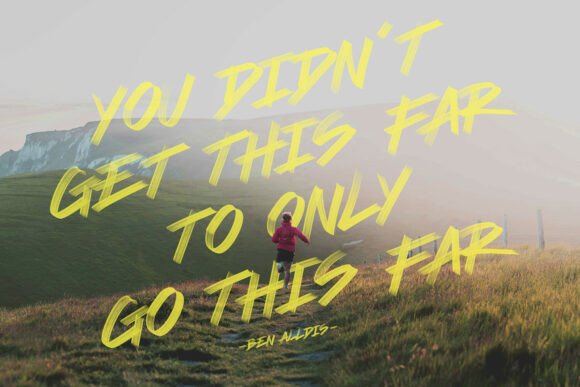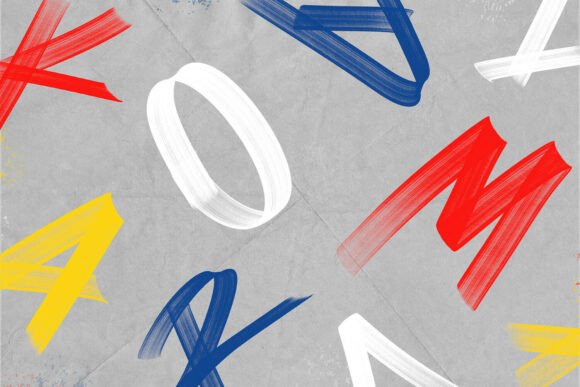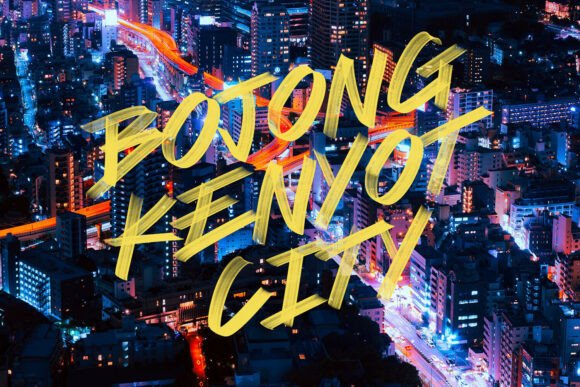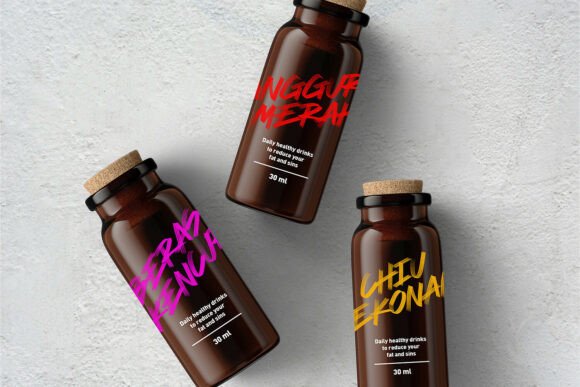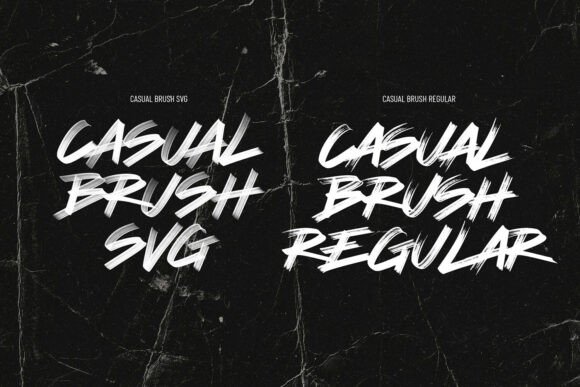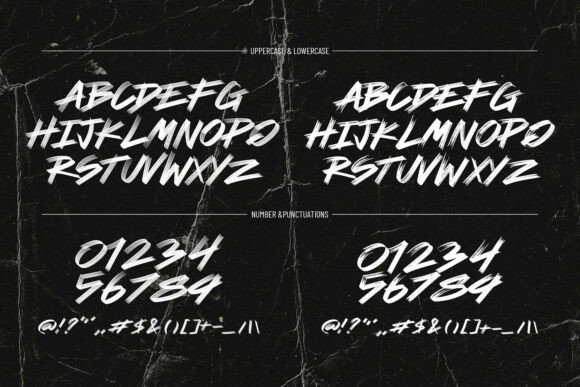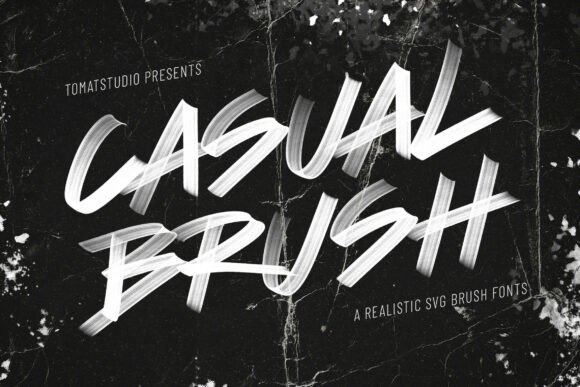
Introducing Casualbrush Font: The Ultimate Brush Font for Creative Designs
Are you looking for a font that can add a touch of personality and whimsy to your designs? Look no further than Casualbrush Font, a realistic brush font that is sure to take your creative projects to the next level. With its bold, fluid, and energetic brush strokes, Casualbrush Font is perfect for designers and crafters who want to convey a powerful and expressive message with a casual, yet impactful, aesthetic.
What is Casualbrush Font?
Casualbrush Font is a hand-painted font that is designed to mimic the look and feel of traditional brush strokes. Its distinctive character is defined by bold, fluid, and energetic brush strokes that give the impression of being hand-painted. The font comes in two styles: Casual Brush SVG and Casual Brush Regular. The Casual Brush SVG style utilizes advanced SVG technology to capture a highly detailed, textured brush appearance, while the Casual Brush Regular style offers a cleaner, solid version of the same artistic strokes.
Key Features of Casualbrush Font
- Realistic Brush Strokes: Casualbrush Font features bold, fluid, and energetic brush strokes that give the impression of being hand-painted.
- Two Styles: The font comes in two styles: Casual Brush SVG and Casual Brush Regular, allowing you to choose the one that best suits your design needs.
- Slanted, Dynamic Letterforms: The slanted, dynamic letterforms create a sense of movement and spontaneity, making it perfect for designs that need to convey a powerful and expressive message.
- Versatile: Casualbrush Font is suitable for a wide range of creative projects where an authentic, hand-painted feel is desired.
Benefits of Using Casualbrush Font
Casualbrush Font offers a range of benefits for designers and crafters, including:
- Unique and Eye-Catching Designs: With its bold, fluid, and energetic brush strokes, Casualbrush Font is sure to add a touch of personality and whimsy to your designs.
- Time-Saving: Casualbrush Font saves you time and effort by providing a pre-designed font that can be used in a variety of creative projects.
- High-Quality: The font is designed to high-quality standards, ensuring that your designs look professional and polished.
Use Cases for Casualbrush Font
Casualbrush Font is suitable for a wide range of creative projects, including:
- Branding and Packaging: Use Casualbrush Font to create unique and eye-catching branding and packaging designs that stand out from the crowd.
- Posters and Flyers: The font is perfect for creating bold and eye-catching posters and flyers that grab attention.
- Digital Art and Illustration: Casualbrush Font can be used to add a touch of personality and whimsy to digital art and illustration projects.
- Crafting and Scrapbooking: The font is also suitable for crafting and scrapbooking projects, where a hand-painted feel is desired.
Tips for Using Casualbrush Font
Here are some tips for using Casualbrush Font:
- Experiment with Different Sizes and Colors: Experiment with different sizes and colors to find the perfect combination for your design.
- Use it with Other Fonts: Casualbrush Font can be used with other fonts to create a unique and eye-catching design.
- Pay Attention to Kerning and Spacing: Pay attention to kerning and spacing to ensure that your design looks professional and polished.
| Font Name | Casualbrush Font |
| Author | tomatstudio |
In conclusion, Casualbrush Font is a versatile and unique font that is perfect for designers and crafters who want to add a touch of personality and whimsy to their designs. With its bold, fluid, and energetic brush strokes, Casualbrush Font is sure to take your creative projects to the next level. Whether you’re working on branding and packaging, posters and flyers, digital art and illustration, or crafting and scrapbooking projects, Casualbrush Font is a great choice.